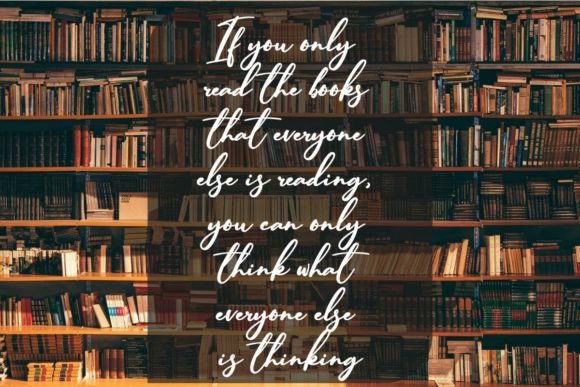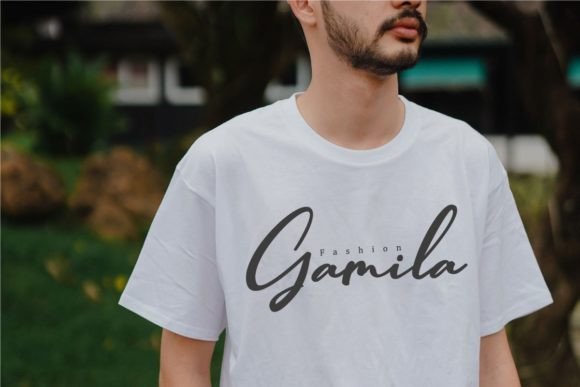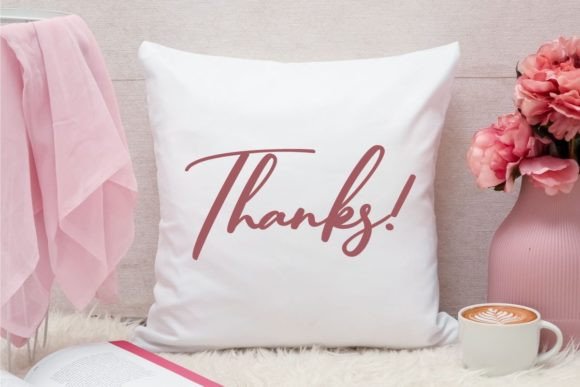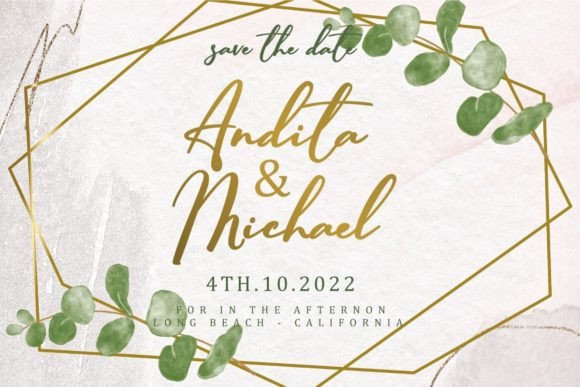
Bartholomew Font
About Bartholomew Font
Bartholomew is a captivating and gracefully flowing handwritten font, perfect for a myriad of design applications. Whether you’re working on wall displays, crafting elegant wedding invitations, designing logos for social media posts, creating eye-catching advertisements, or enhancing product packaging and labels, Bartholomew delivers impressive and versatile typography.
The font’s inherent beauty and fluidity make it an ideal choice for a range of visual projects. It effortlessly adds a touch of sophistication to product designs and labels, ensuring that your branding stands out with a unique and handcrafted aesthetic. When applied to photography and watermarks, Bartholomew lends a personal and artistic quality, enhancing the visual appeal of your images.
Bartholomew’s versatility extends to invitations and stationery, where its flowing script brings an elegant and timeless charm. The font adapts seamlessly to various contexts, providing a touch of impressive typography that elevates the overall aesthetic of any project.
In summary, Bartholomew isn’t just a font; it’s a design companion that effortlessly enhances your creative endeavors. Whether you’re working on social media logos or sophisticated stationery, this beautiful handwritten font brings a flowing and captivating charm, making it the perfect choice for projects that demand impressive and expressive typography.